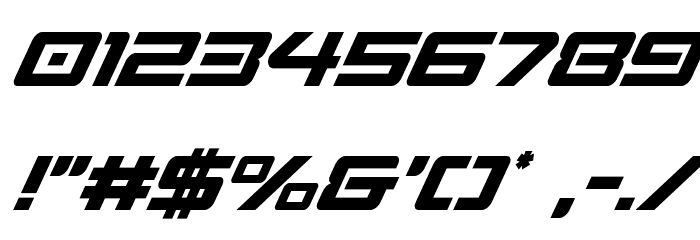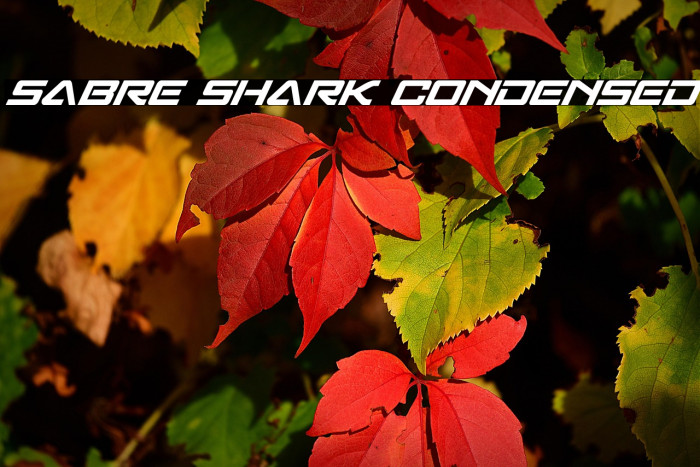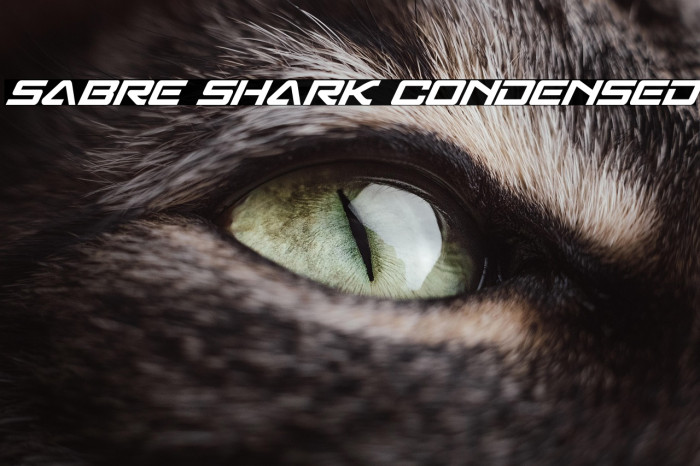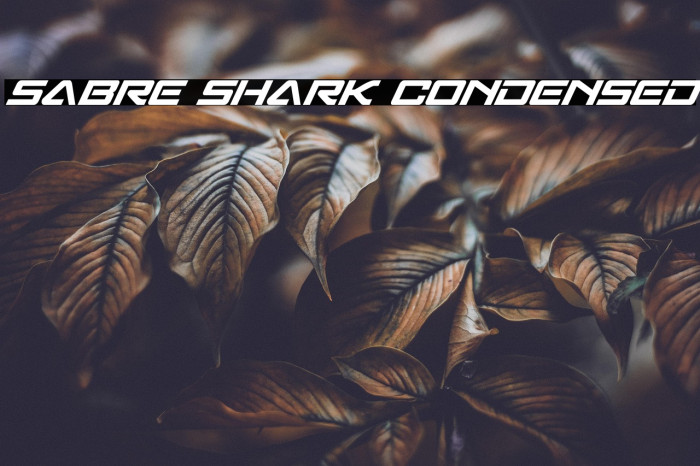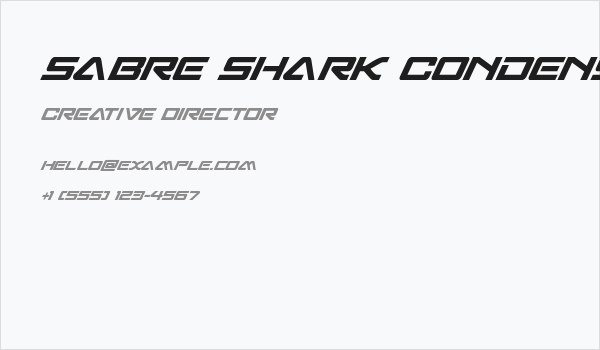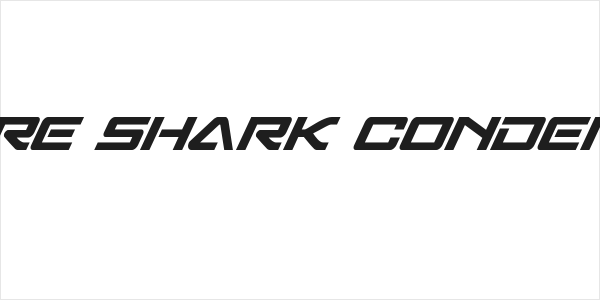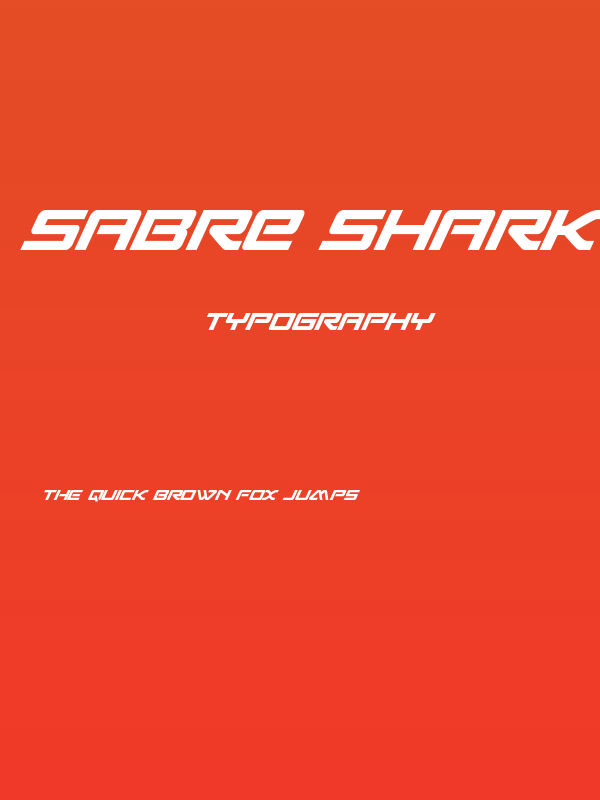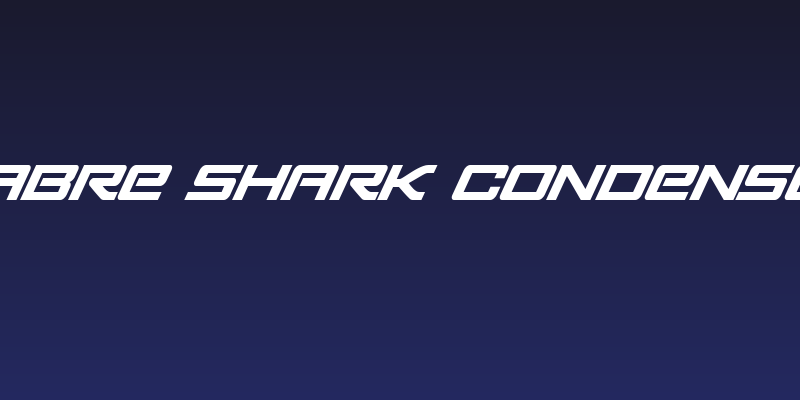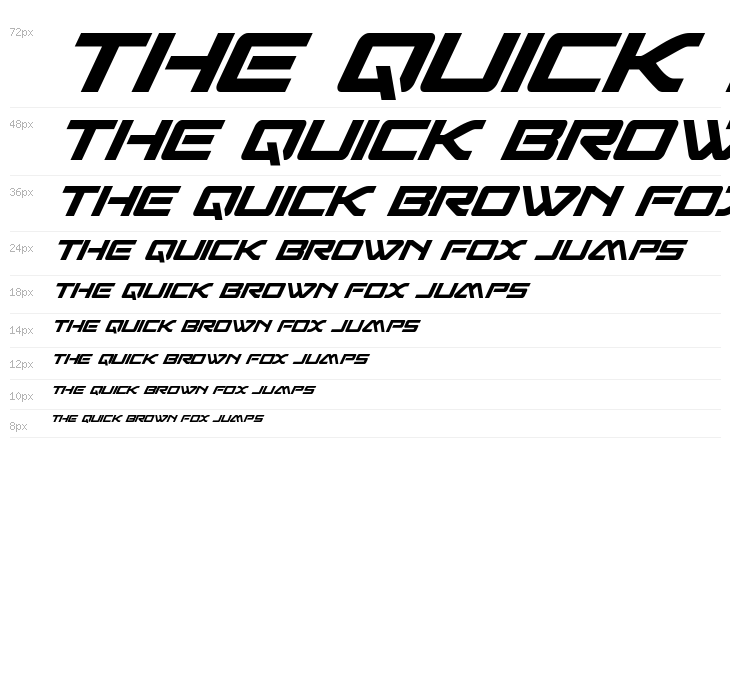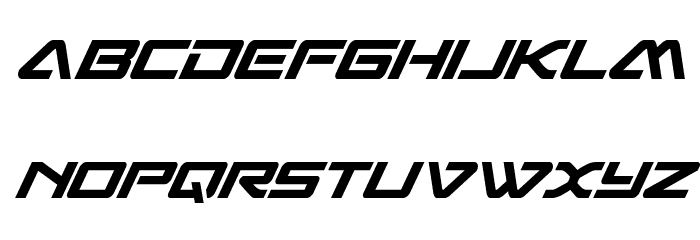
Sabre Shark Condensed Font
Sabre Shark Condensed Description
This font features a futuristic and angular design, characterized by its sharp edges and condensed form. The letters are slanted, giving a sense of motion and speed, which is enhanced by the geometric cuts and bold strokes. The uppercase and lowercase letters maintain a consistent style, with a strong emphasis on horizontal lines. The numerals and special characters follow the same design principles, ensuring uniformity across all glyphs. This font is ideal for projects that require a modern and dynamic look, such as technology branding or sports-related designs.
| Use Case | Logos, Headlines |
| Proposed Projects | Ideal for technology branding, sports logos, and modern advertising. |